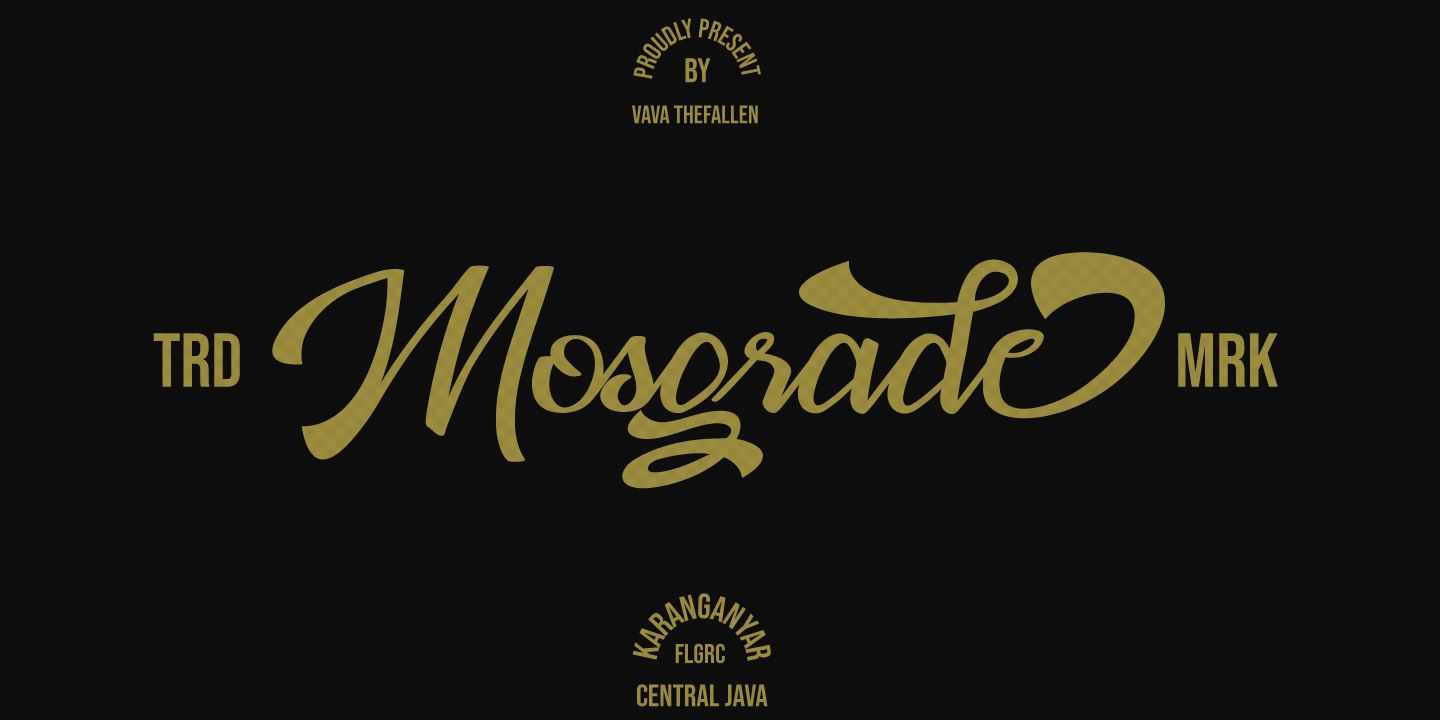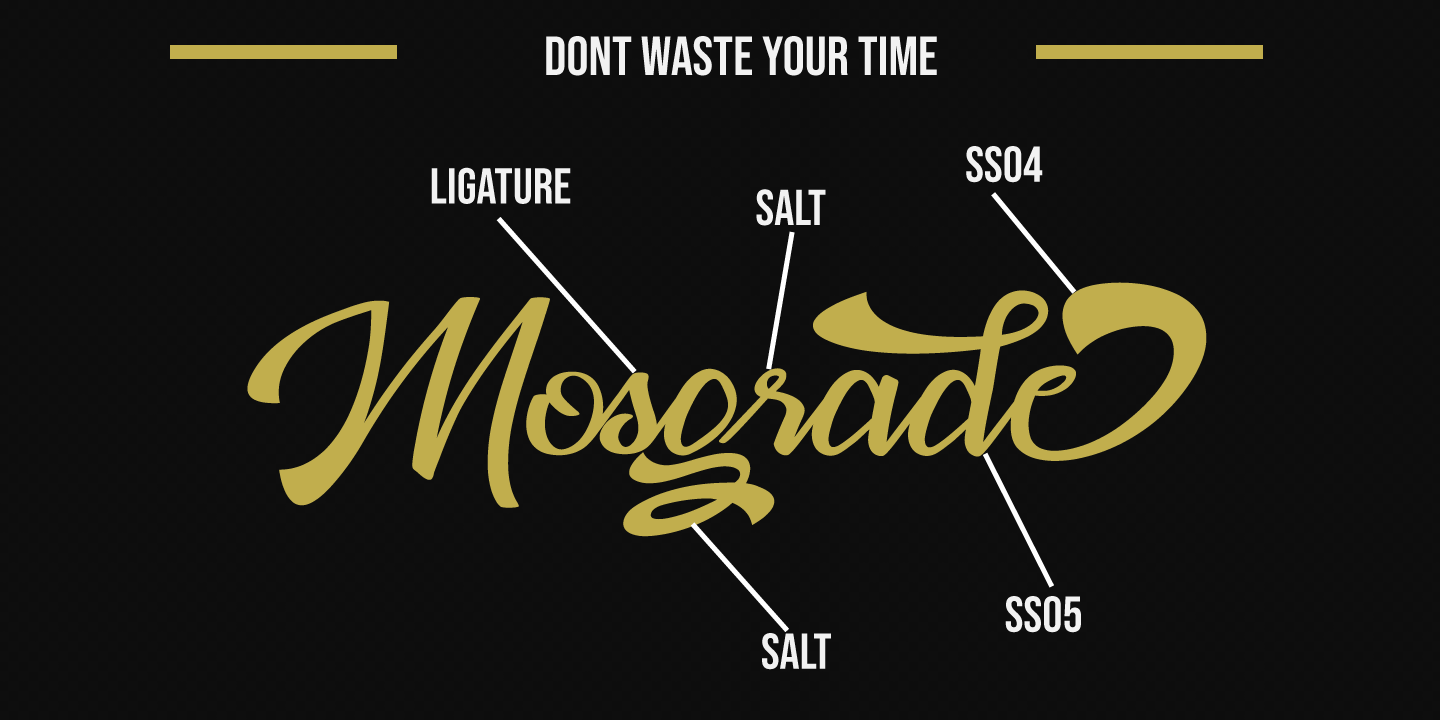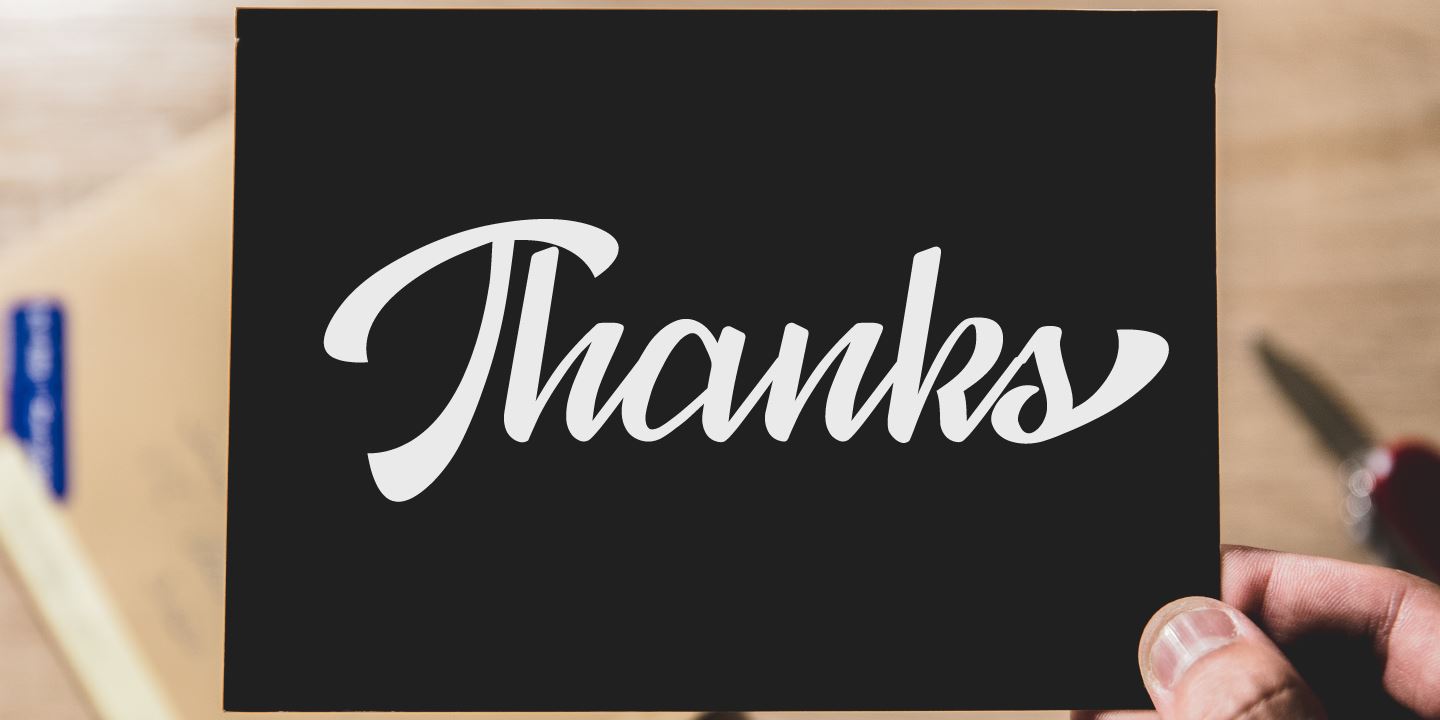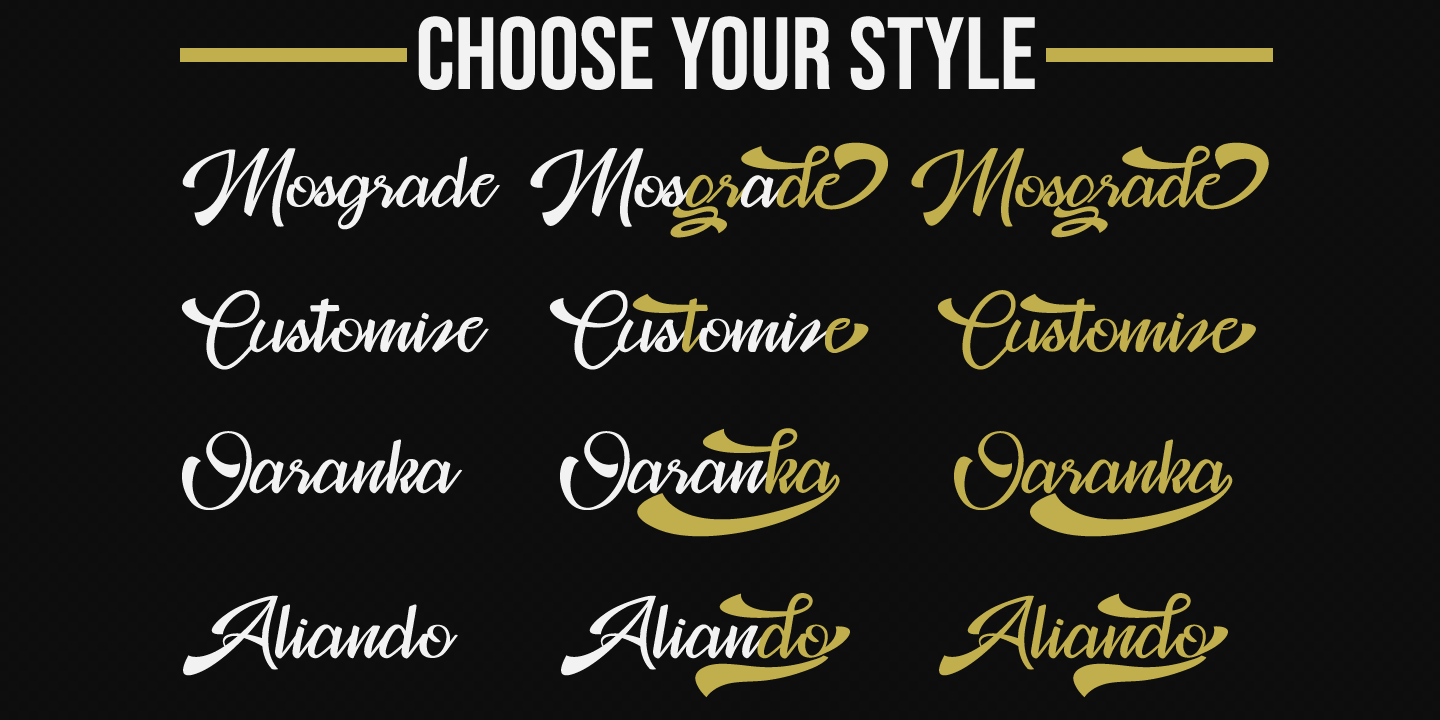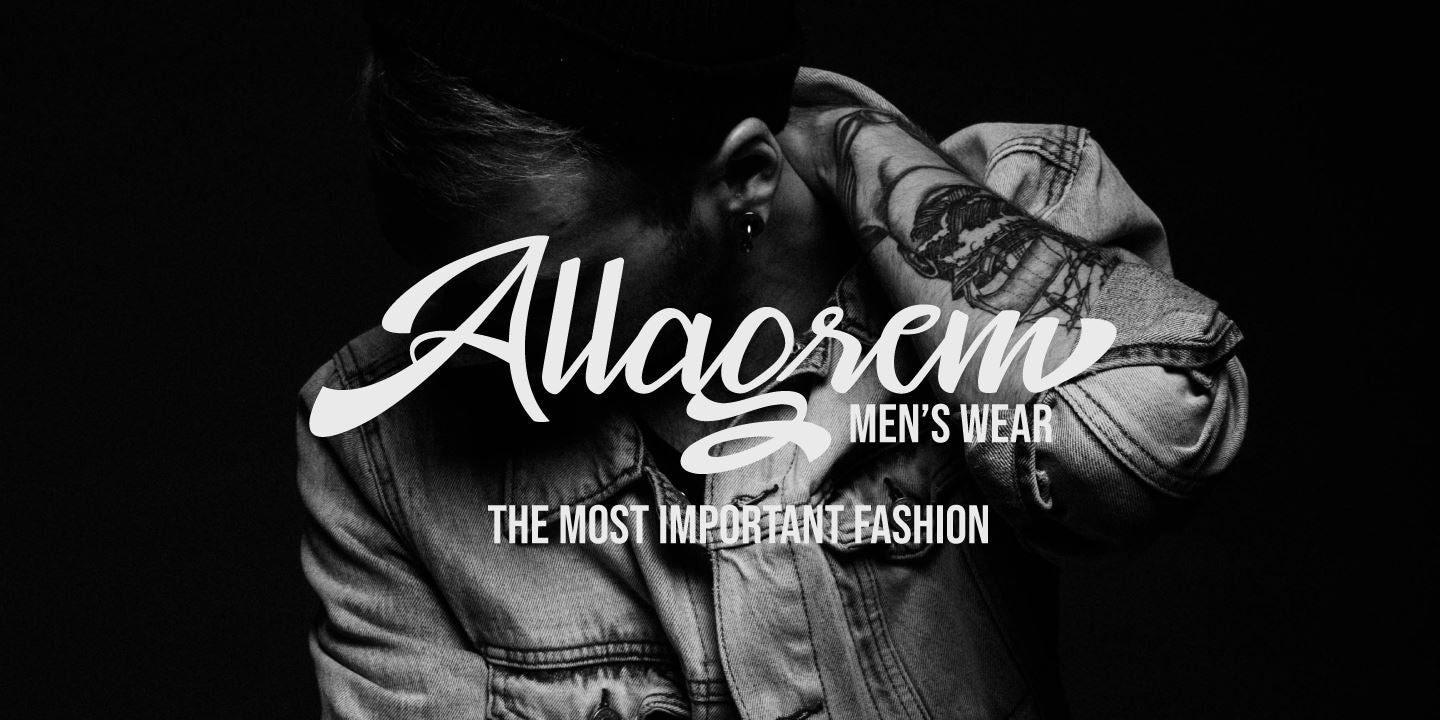
Mosgrade Bold Script Font
About Mosgrade Bold Script Font
HELLO GUYS, Say Hello ! to ‘ Mosgrade Modern Script Font’ The Mosgrade is an modern handwritten script font. which is perfect for  flyer,invitations, advertisements, banners, books, business cards, signatures,headings, logos, t-shirt, letterhead, signage, lable, news, posters, badges etc.  and others who want a bold script font type. What’s Included ? Mosgrade Font ( TTF, OTF,WOFF ) The Features of this fonts is : Standart ligatures Stylistic Alternate Stylistic Set SS01-SS06 Swash Multilingual Support Work on Mac or Windows Programs that support in this font is a Photo Shop, Adobe Illustrator, Adobe Indesign, Corel Draw and Microsoft Office.To enable the OpenType Stylistic alternates, you need a program that supports OpenType features such as Adobe Illustrator CS, Adobe Indesign & CorelDraw X6-X7. Thanks so much for checking out my shop! VAVA ARYANTO